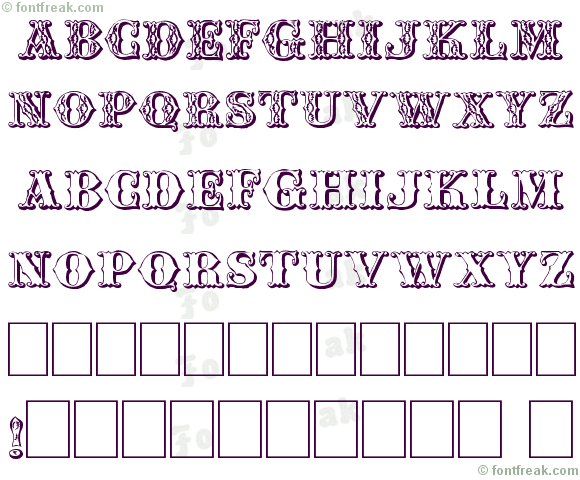
About Chipperfield And Bailey
Chipperfield And Bailey is a distinctive serif font designed by Paul Lloyd, characterized by its elegant yet approachable aesthetic. The font features a moderate stroke weight, balanced with subtle contrast that brings a refined touch to any design. Its well-proportioned letterforms and generous spacing create a sense of harmony and readability, making it an excellent choice for various applications. The decorative elements, such as the slightly curved serifs and unique terminal styles, add a touch of personality without overwhelming the overall design.
This versatile font is particularly well-suited for a variety of creative projects. It shines in wedding invitations, where its sophistication can enhance the romantic theme. Additionally, Chipperfield And Bailey makes an excellent choice for movie posters, where its elegant yet bold character can draw attention and set the tone for the film. Restaurant menus benefit from the font's readability and stylish flair, making dishes appear more inviting. Graphic designers will also find it useful for branding materials, as it offers a unique identity that can help businesses stand out in a crowded market. Content creators looking to elevate their visuals will appreciate its charm and versatility.
Targeting graphic designers, small business owners, and content creators, Chipperfield And Bailey stands out with its unique blend of elegance and functionality. The font embodies a contemporary vibe while paying homage to traditional serif designs, making it a timeless choice for any creative endeavor. With its freeware license, users can access the Chipperfield And Bailey font free download, allowing for limitless creative possibilities without breaking the bank. This font not only enhances the aesthetic appeal of projects but also captures attention, making it a valuable addition to any designer's toolkit.